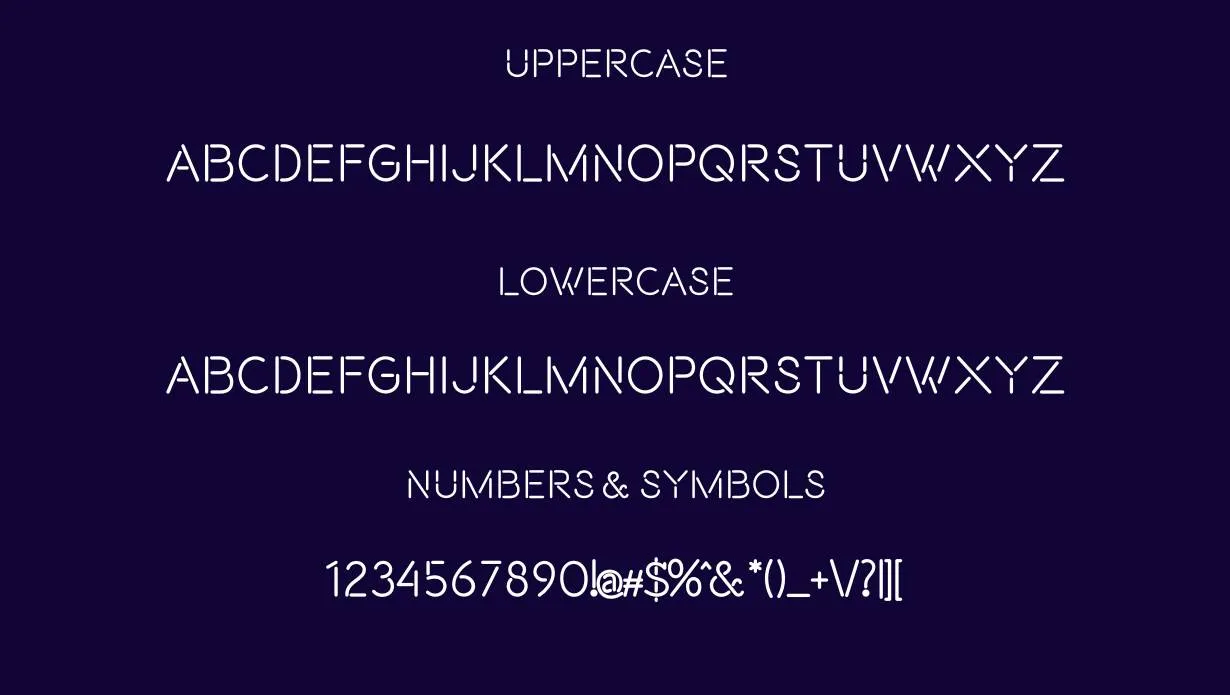
Beon Display Font is a sleek and contemporary font that exudes a powerful and striking presence.
It’s often chosen for formal invitations, editorial design, and branding, where a touch of tradition and elegance is desired.
Beon Display Font Family
This font’s well-proportioned letterforms and robust style convey a sense of sophistication and prestige.